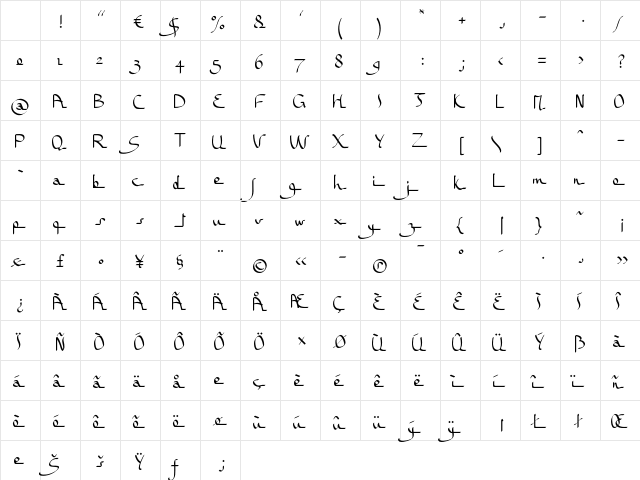
Complete BousniRonde LT Std Medium Regular glyph index. Displaying only characters natively supported by BousniRonde LT Std Medium Regular font.
BousniRonde LT Std Medium is a composed and adaptable typeface that performs quietly and consistently across a wide range of design contexts. Its slender proportions lend an understated elegance to any composition.